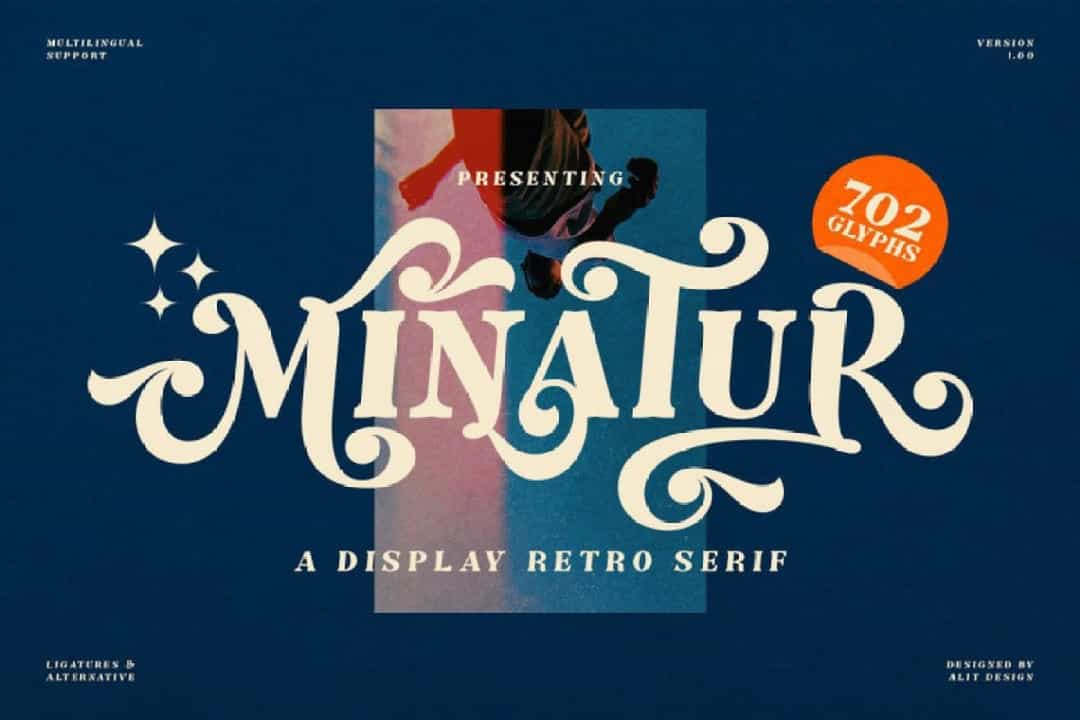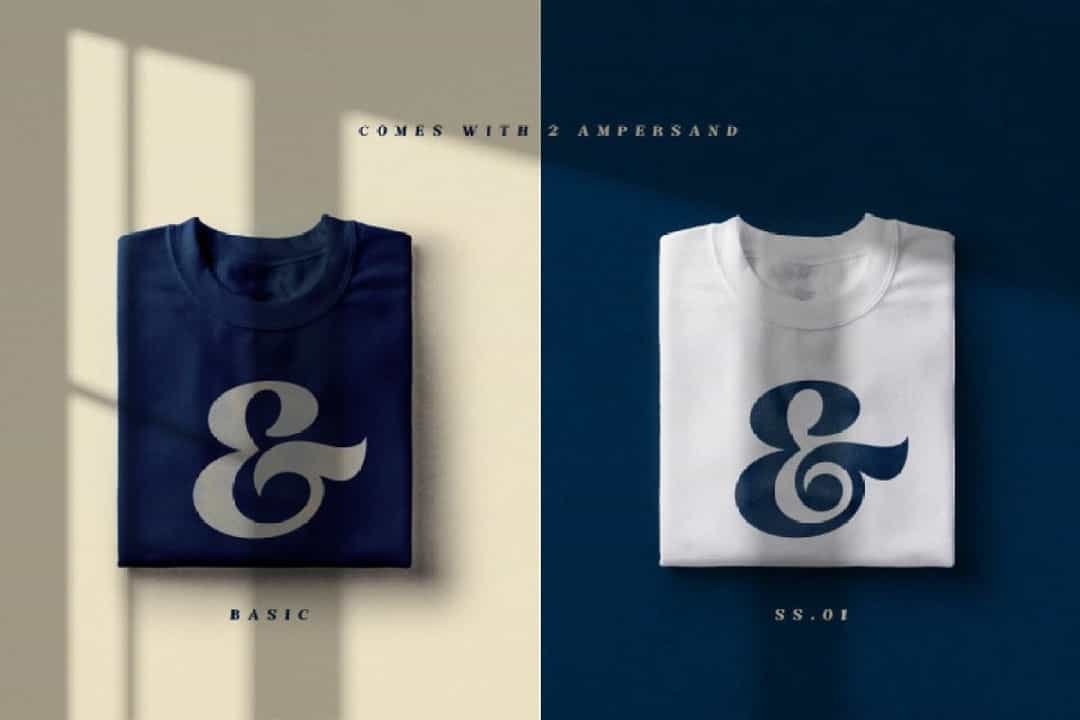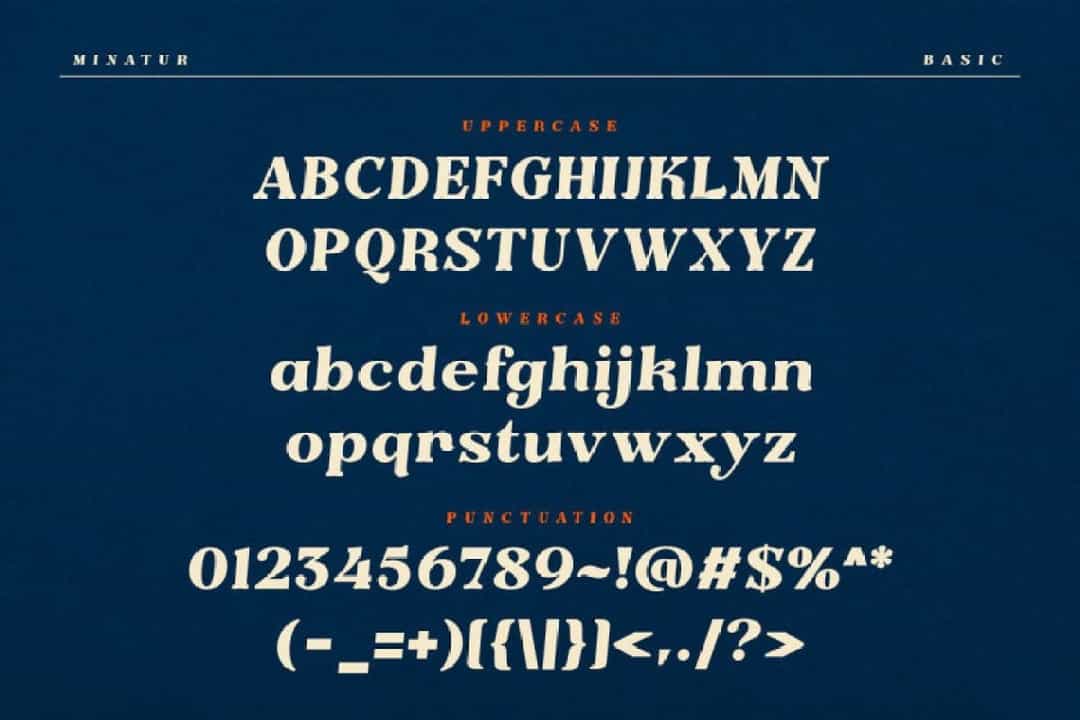
Minatur Serif Typeface was inspired by popular designs from the 80s to 90s, such as those seen on clothing from this period. Minatur Typeface offers a sturdy yet contemporary appearance. Additionally, its range of characters and swashes makes creating striking retro-style designs easy.